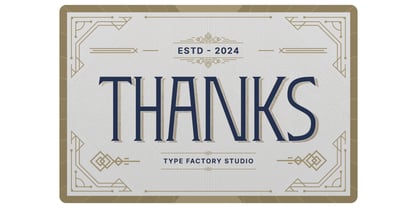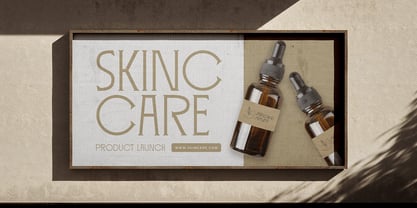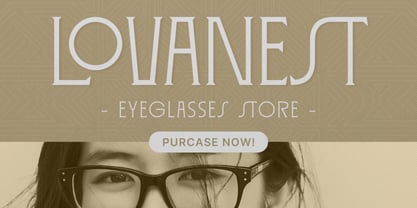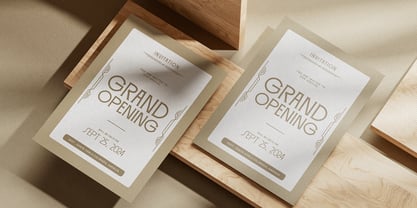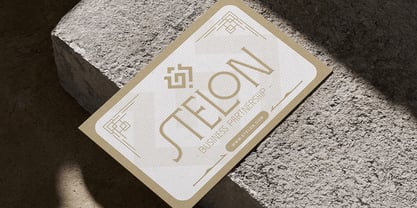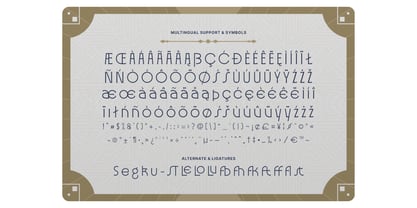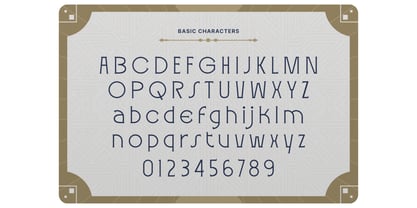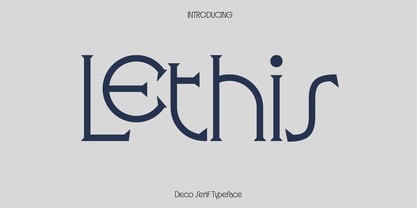
Lethis
by Only Fonts
The Lethis Font Family was designed by Olivia Love and published by Only Fonts. Lethis contains 1 styles. More about this family
Lethis is a refined deco serif inspired by the glamor and craft of the Art Deco movement. Geometric precision meets timeless elegance in letterforms that honor the golden era of the 1920s, while structured details and symmetrical forms keep the design rooted in modern utility. Lethis was created for projects that demand sophistication and presence: luxury branding that captures prestige, editorial spreads that need measured grace, and event materials that speak to polished formality. Use it when your design language calls for the sleek drama of Art Deco geometry with contemporary legibility and control. Where it shines: - Luxury and fashion branding: logos, monograms, product packaging, and campaigns for cosmetics, jewelry, hotels, and high‑end retail where a sense of refinement is critical. - Editorial design: magazine mastheads, chapter openers, pull quotes, and feature layouts that balance artistry with structure. - Event materials: invitations, programs, certificates, and signage for weddings, galas, exhibitions, and formal occasions that seek classic visual elegance. - Marketing campaigns: posters, digital banners, and social assets where a vintage‑meets‑modern voice elevates brand storytelling. Standout features: - Uppercase and lowercase letterforms that pair clean, proportional geometry with subtle decorative touches for a balanced display presence. - Symbols and punctuation crafted to match the sophistication of the main glyphs, ensuring cohesive typographic composition. - Lining numerals designed with Art Deco symmetry for price tags, dates, and editorial numbering that feels intentionally curated. - Thoughtful ligatures that resolve letter pairs and add a touch of refinement without sacrificing clarity. - Multilingual support so the elegance of Lethis carries across regions, languages, and localized brand expressions. Choose Lethis when the brief calls for Art Deco allure with a contemporary sensibility. It brings the glamor of the Jazz Age to fashion materials, classy logos, stylish posters, luxury packaging, editorial titles, and formal invitations with a commanding yet graceful design voice.